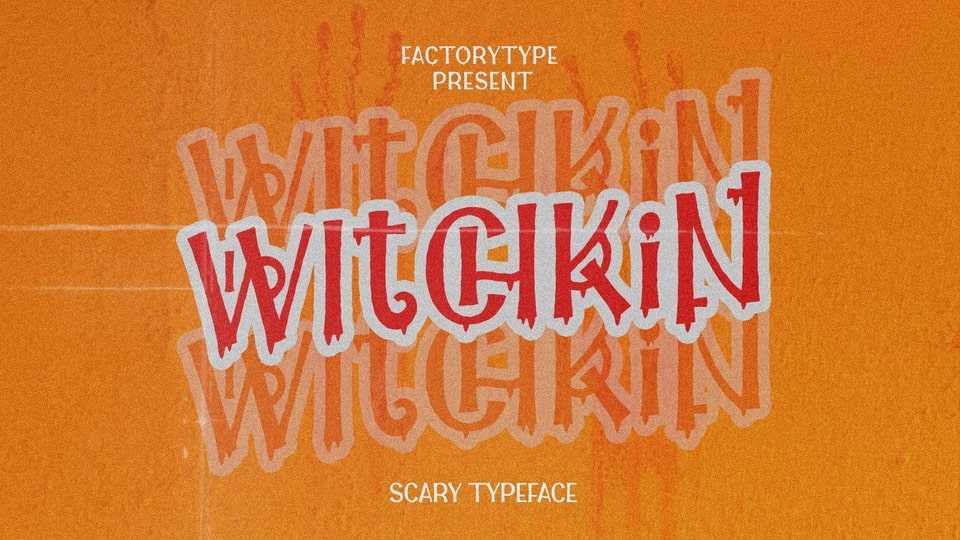
Download Witchkin font, a spooky display typeface. Boasting a distinctive atmosphere and top-notch design, you can create a project that will give your audience shivers down their spines. Take Witchkin for a spin and bring your nightmares to reality!
Designer: Factory Type